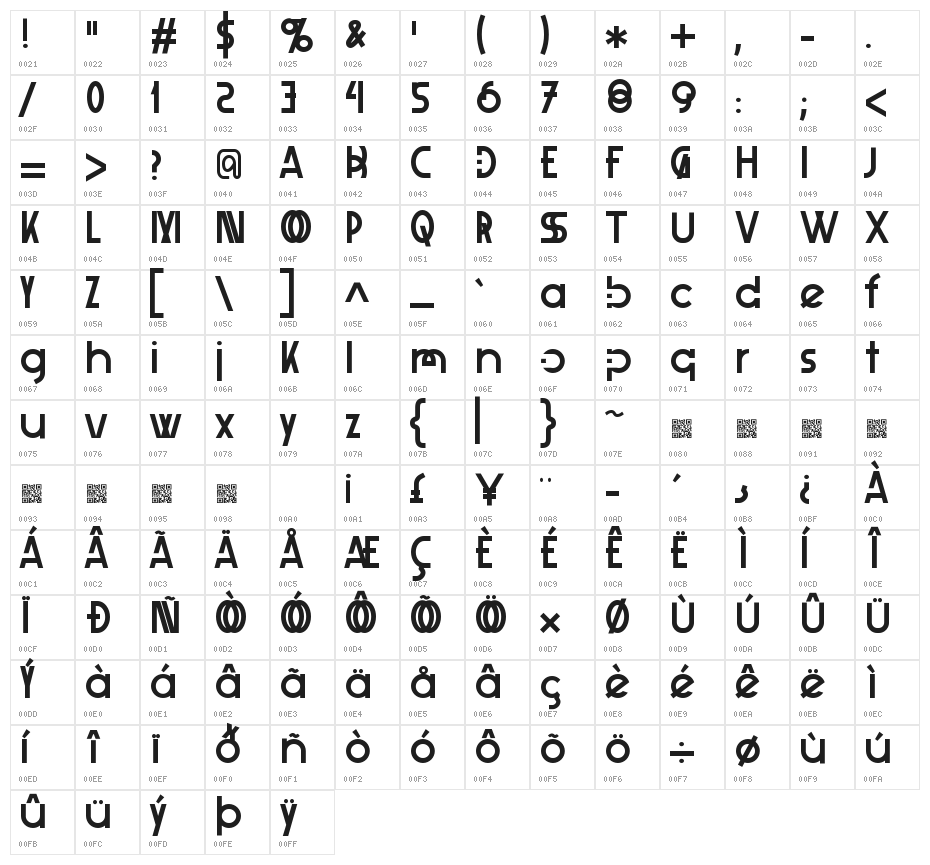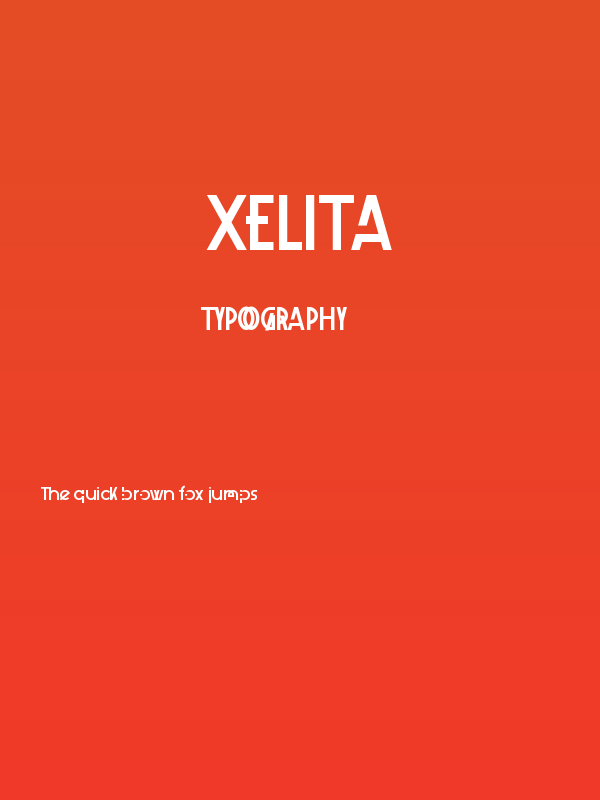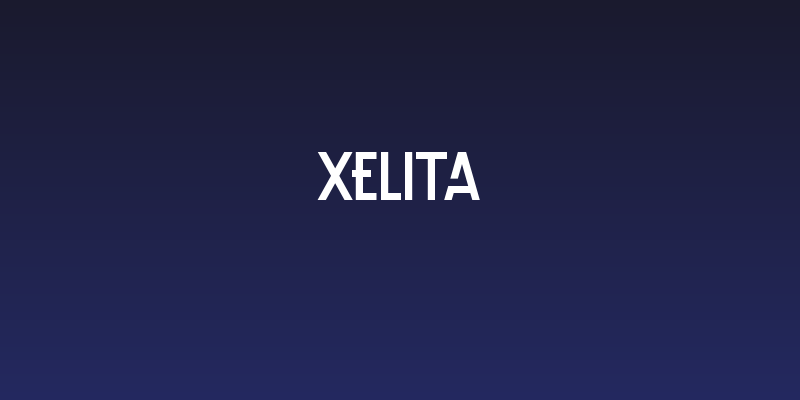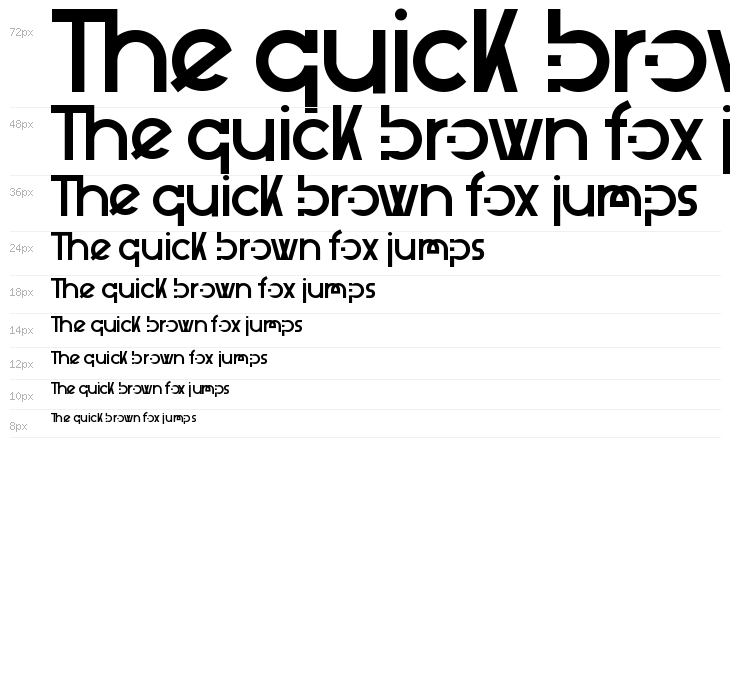
Xelita Font
Xelita Description
This font features a bold and modern design with a unique geometric style. The characters are constructed with clean, sharp lines and a distinct angular appearance. The uppercase letters exhibit a strong presence with wide strokes and a consistent height, while the lowercase letters maintain a similar geometric structure, offering a cohesive look. The numerals are bold and easily readable, complementing the overall style of the font. Special characters are designed with the same attention to detail, ensuring uniformity across all glyphs. This font's striking design makes it suitable for projects that require a contemporary and impactful visual identity.
XELITA UPPERCASE
XELITA LOWERCASE
XELITA OTHER CHARS
| Proposed Projects | Ideal for branding, advertising, posters, and digital media projects that require a modern and bold aesthetic. |